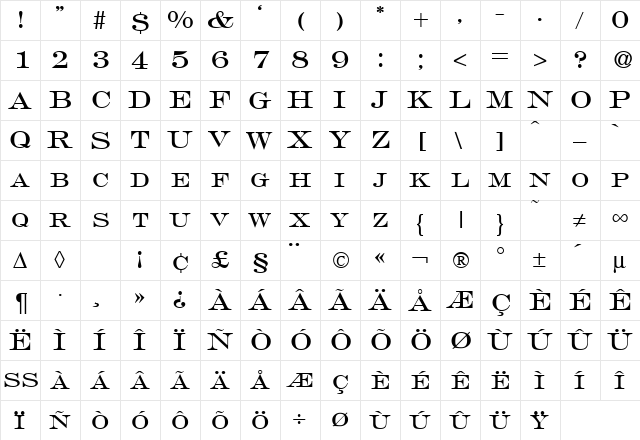
GravureRoman Regular
Design Context for GravureRoman Typeface
GravureRoman offers clean, dependable letterforms without strong stylistic allegiance, making it a practical choice for designers who need flexibility.
Pro Tip: Pair GravureRoman with a font of contrasting weight or personality to build a more expressive typographic hierarchy.